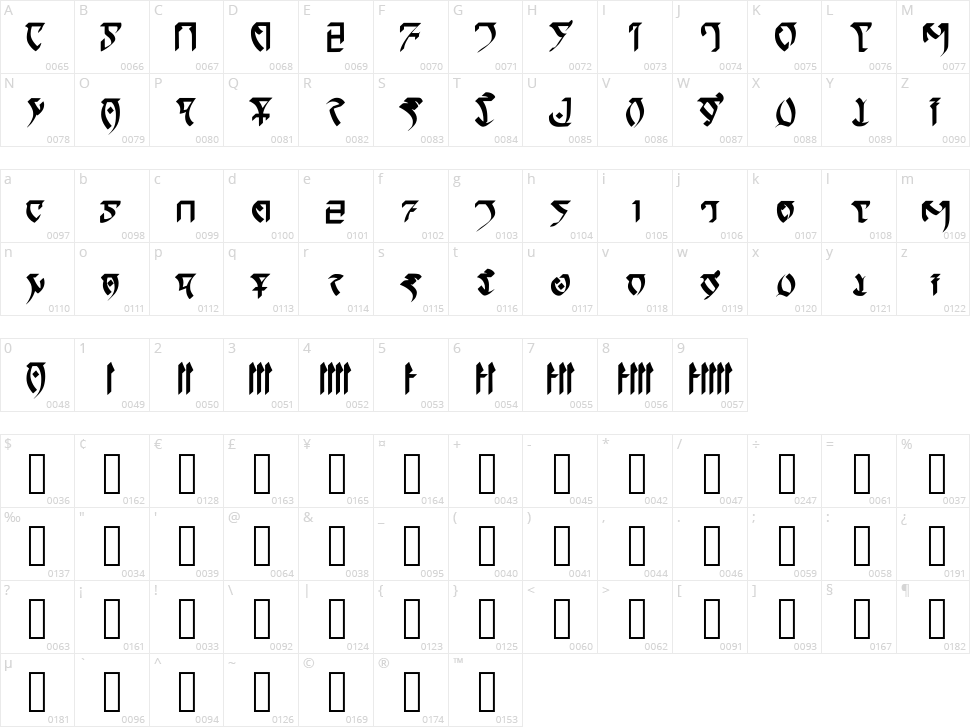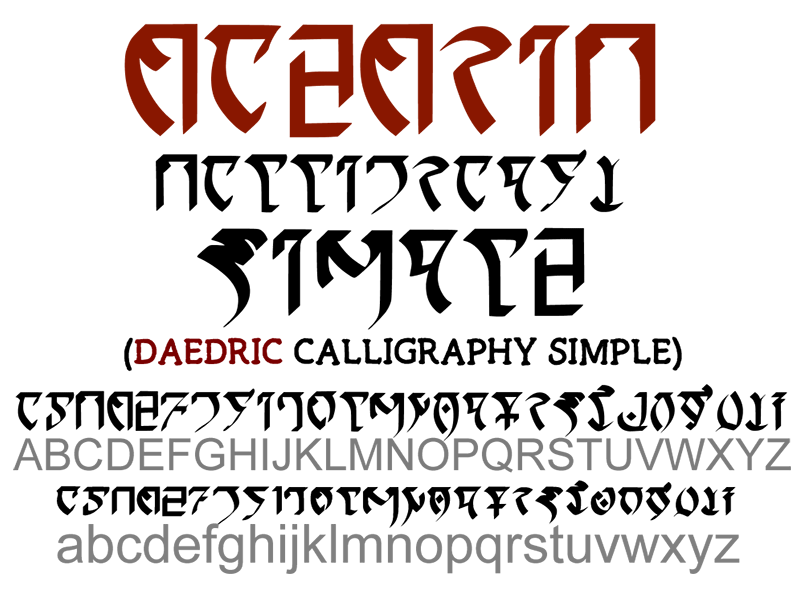
Daedric Calligraphy
Based on the Daedric alphabet font from The Elder Scrolls series. Tamriel needed a simple calligraphic version that looked like it was written by the civilized world, but without all the wrist-twisting. Now you, too, can write the Daedric letters like an n'wah!